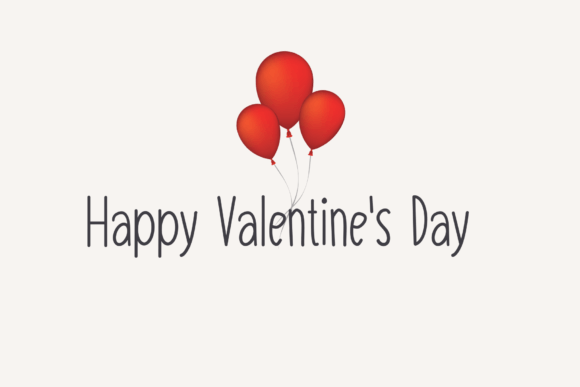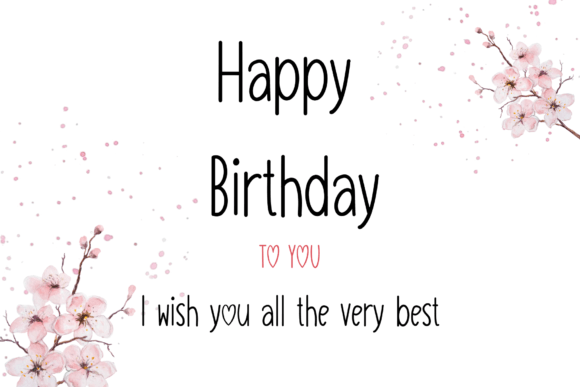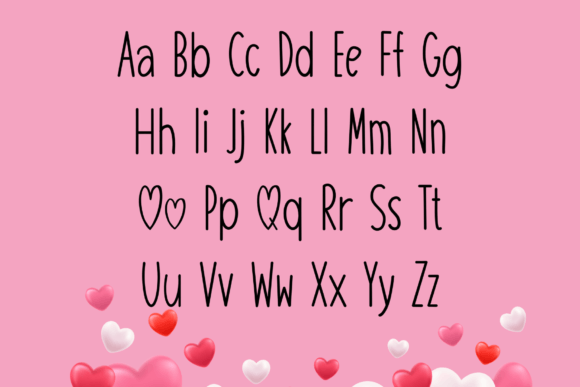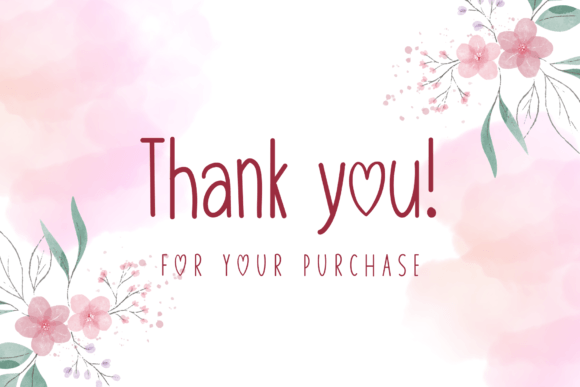
Introduction to Cute Valentine Font
Cute Valentine is a lovely handwritten font.
It has beautiful and well-balanced characters and as a result, it matches a wide pool of designs .